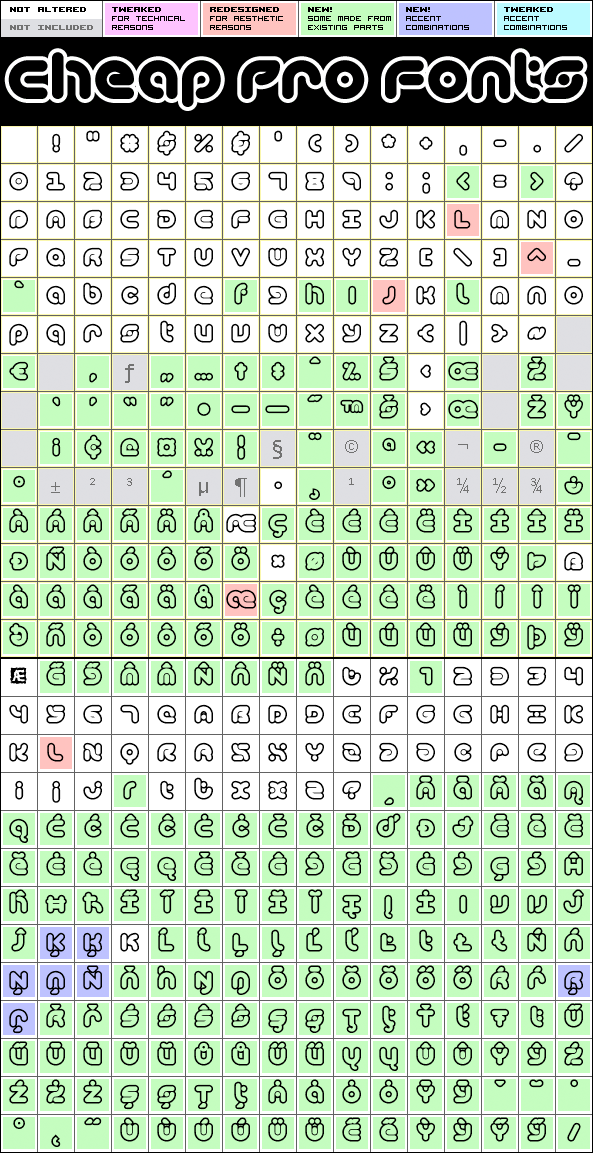
Technique Outline BRK Pro
Technique Outline BRK Pro by Brian Kent
Brian Kent
409 glyphs!
(145 in original)
158 class kernpairs
= 18290 kerning pairs
(4040 in original)
OpenType features:
Alternate letterforms
I noticed this font for its versatile techno look - it makes wonderful logotype word images. Every letter combination is perfectly kerned so that the letters fit together nicely... Also includes some alternate letterforms, but only in their basic forms (not made in combinations with diacritics). These alternates are available via your programs' glyph palette or using the OpenType functions "Stylistic Alternates"/"ss02" and "Swash"/"ss01".
Technique Outline BRK Pro is a professionally reworked font that contains an extended character set for setting text in 65 languages requiring more than the basic A-Z!